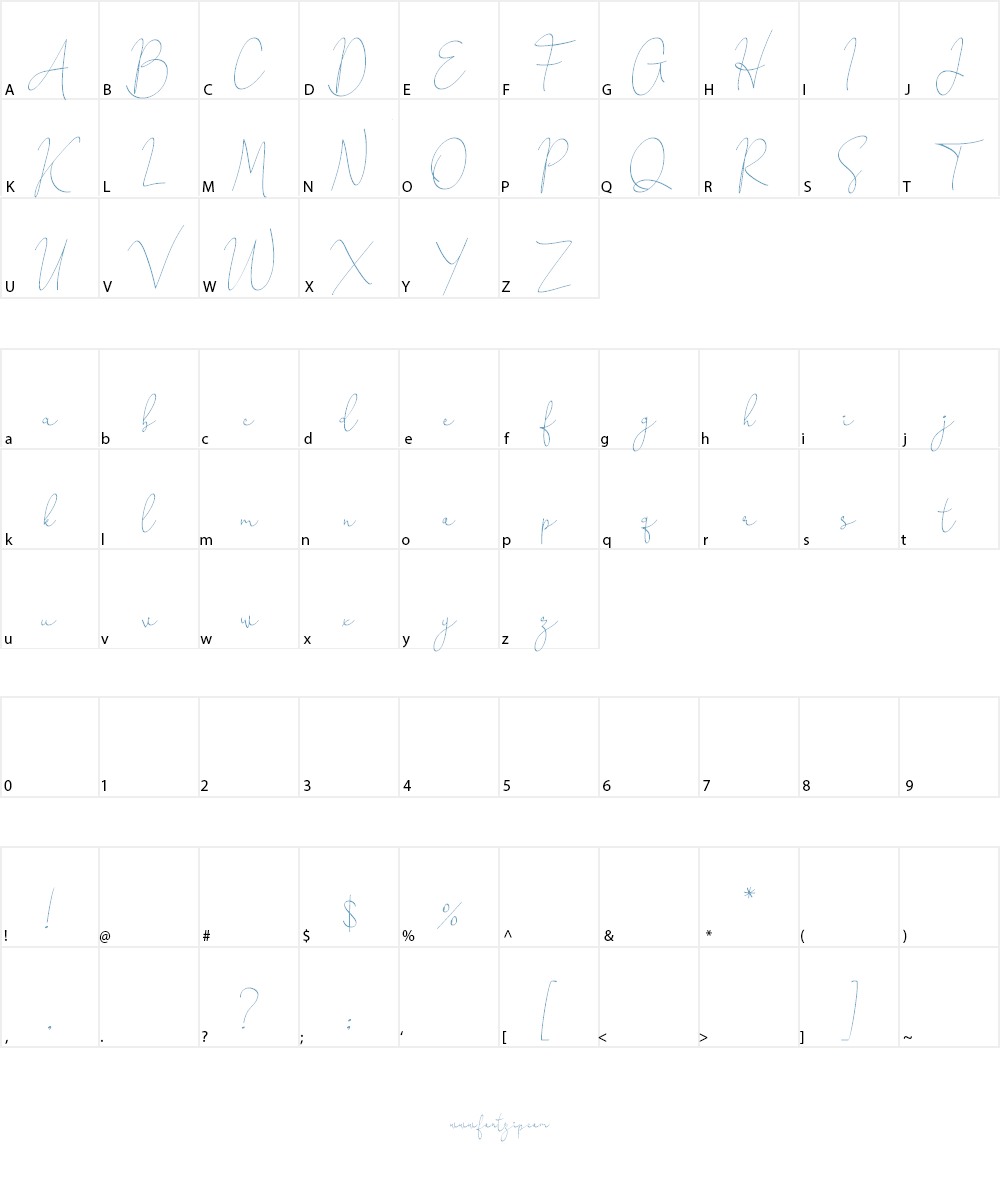
Honeymoon Avenue font duo ,script and serif.
Honeymoon Avenue is a beautiful, smooth handwritten font that is perfect for projects.
Honeymoon Avenue is a handwritten font. It can be used for various purposes such as: logos, magazines, cover albums, quotes, birthday quote and much more.
With natural handwritten, the font is the best choice for you